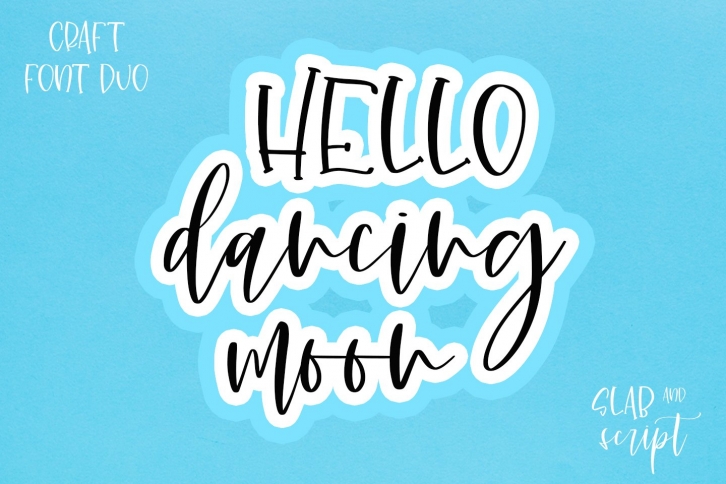
Dancing Moon -Crafty Duo- is a gorgeous font that was realeased on June 10, 2020. The font can be used in many style contexts and design environments. Perfect for invitations, magazines, websites, logos, and more! It was designed by Abo Daniel Studio and the file size is 8.28 MB. Thanks for checking out this font!